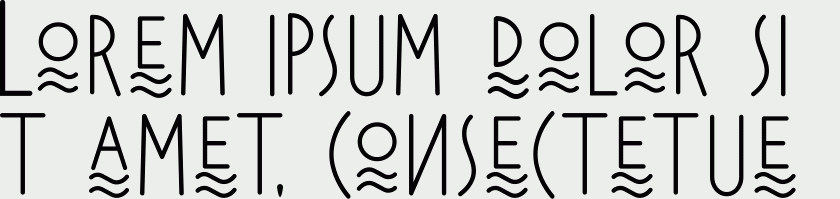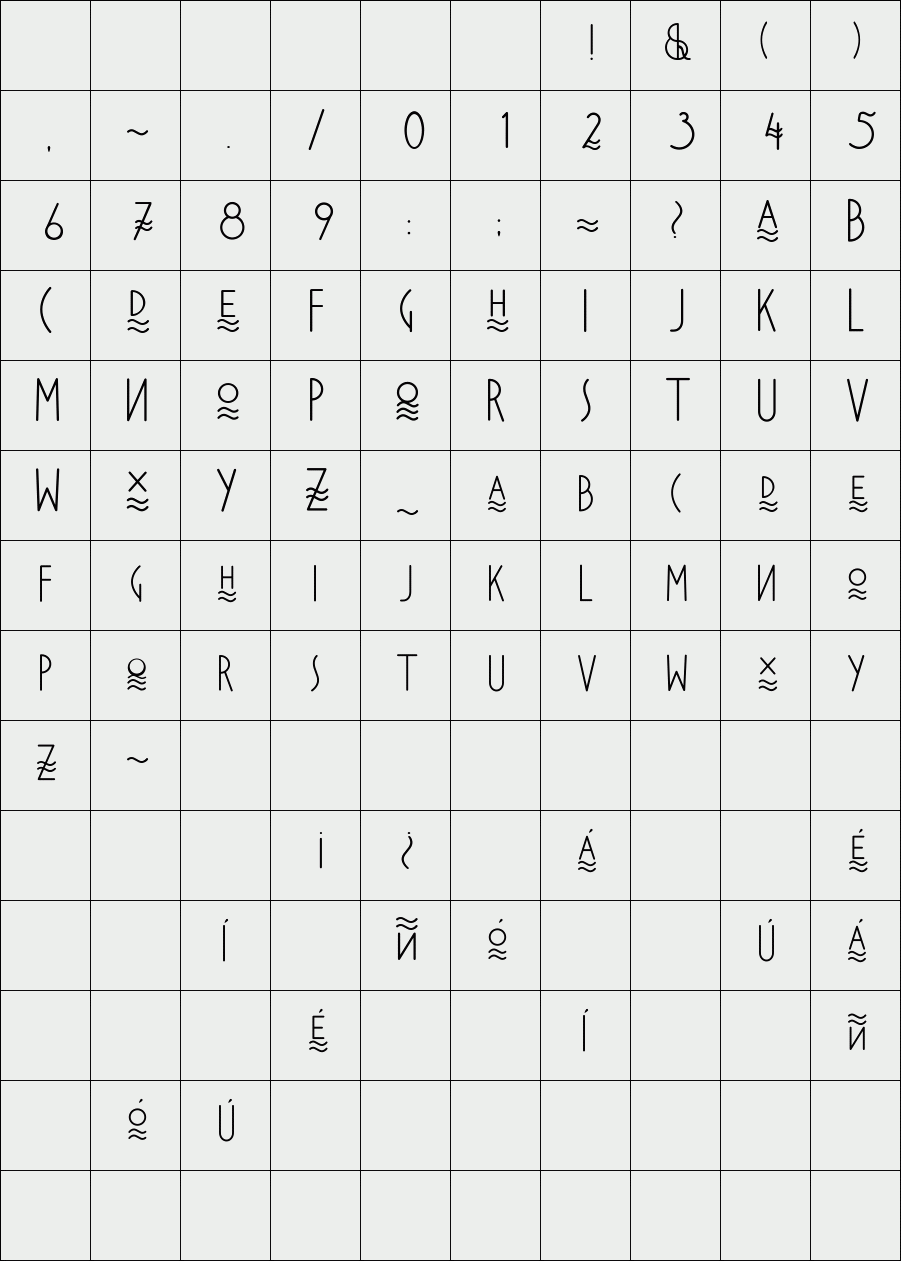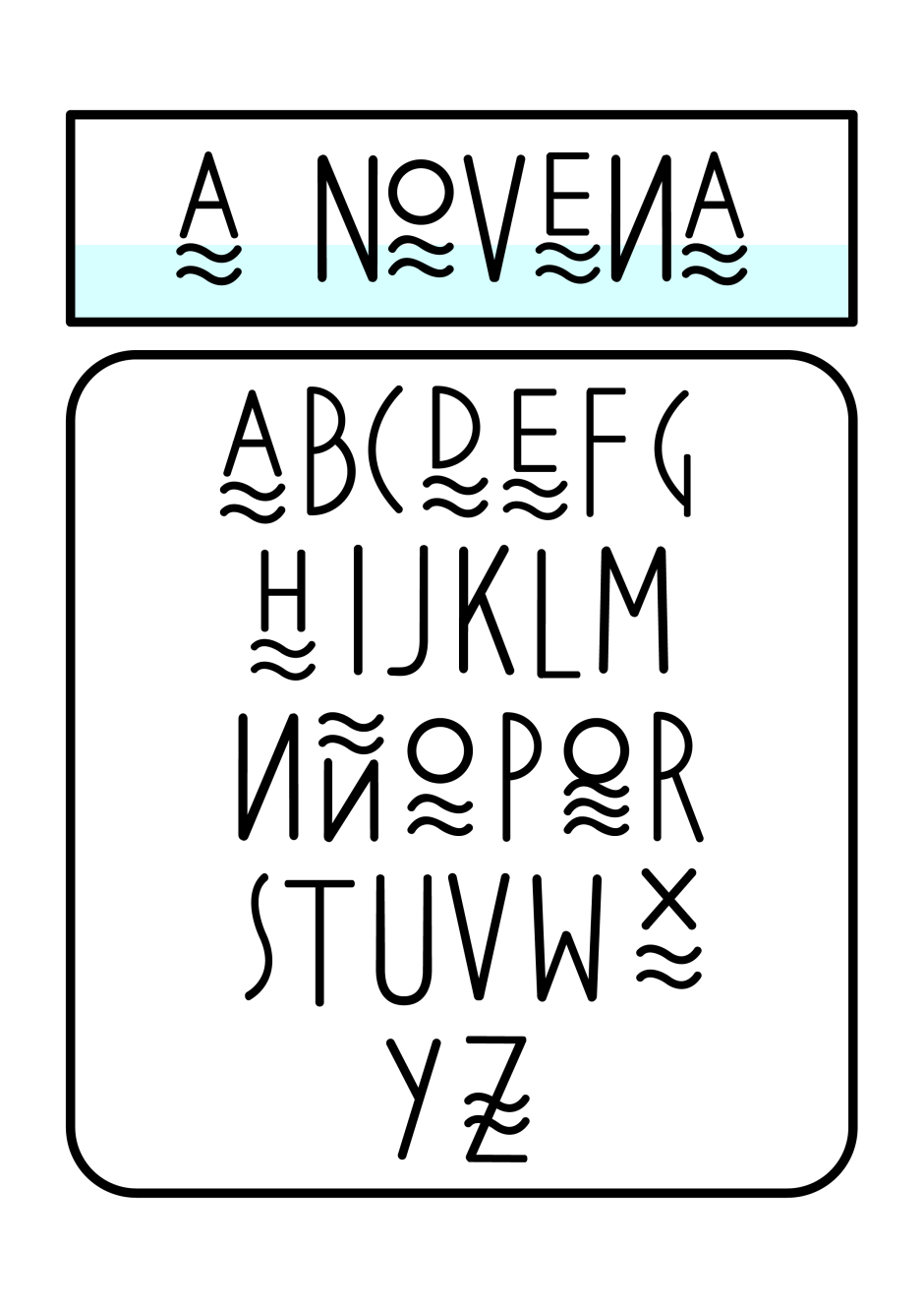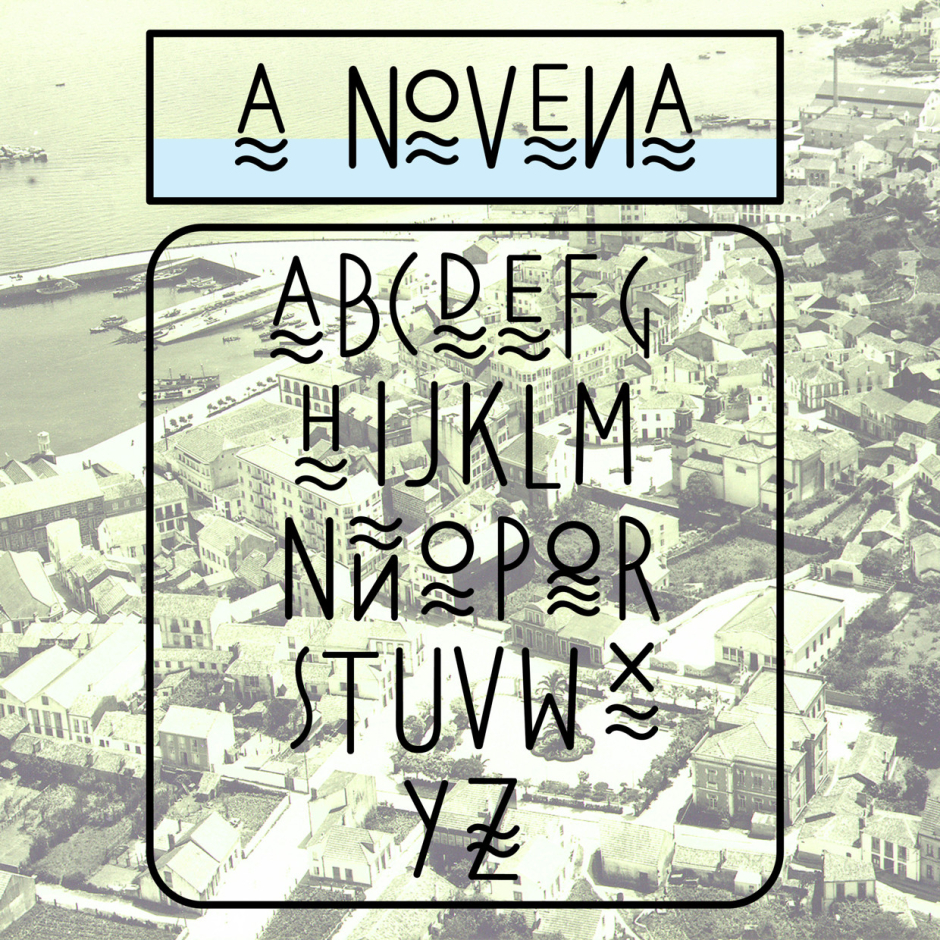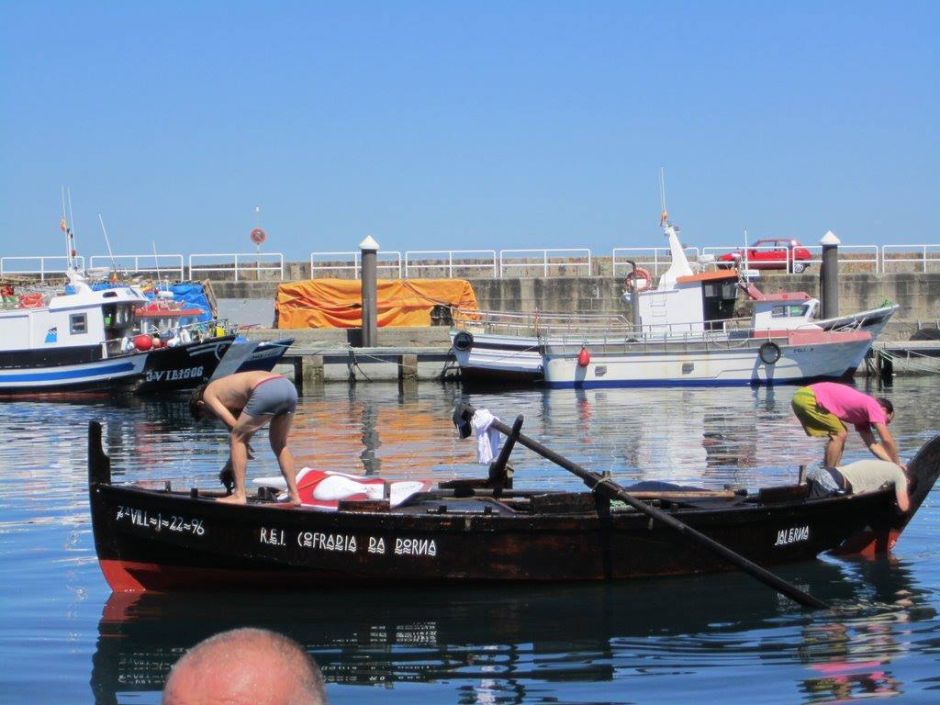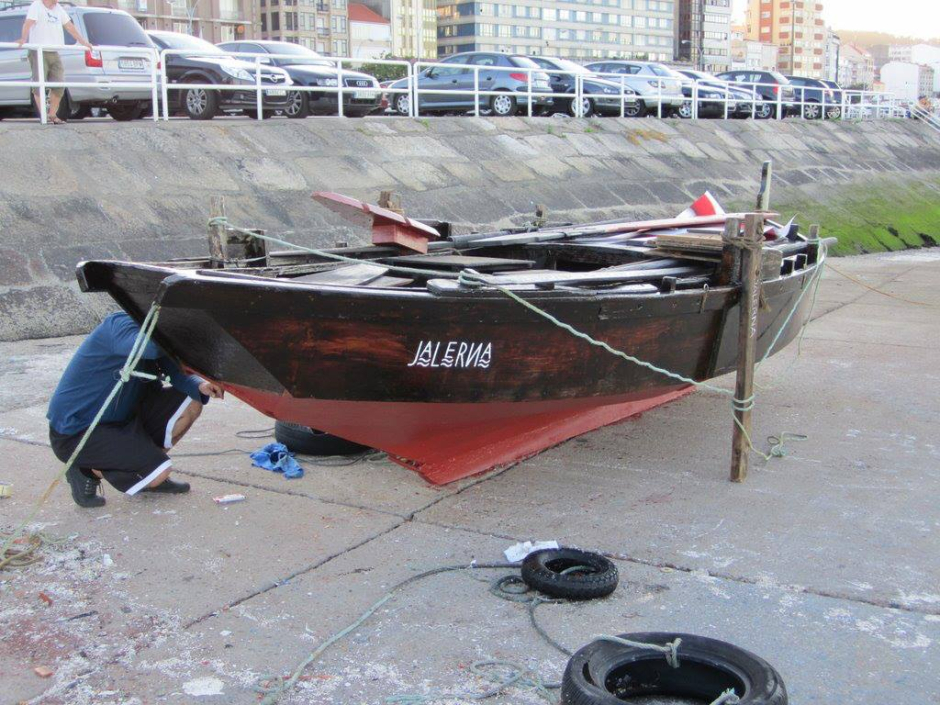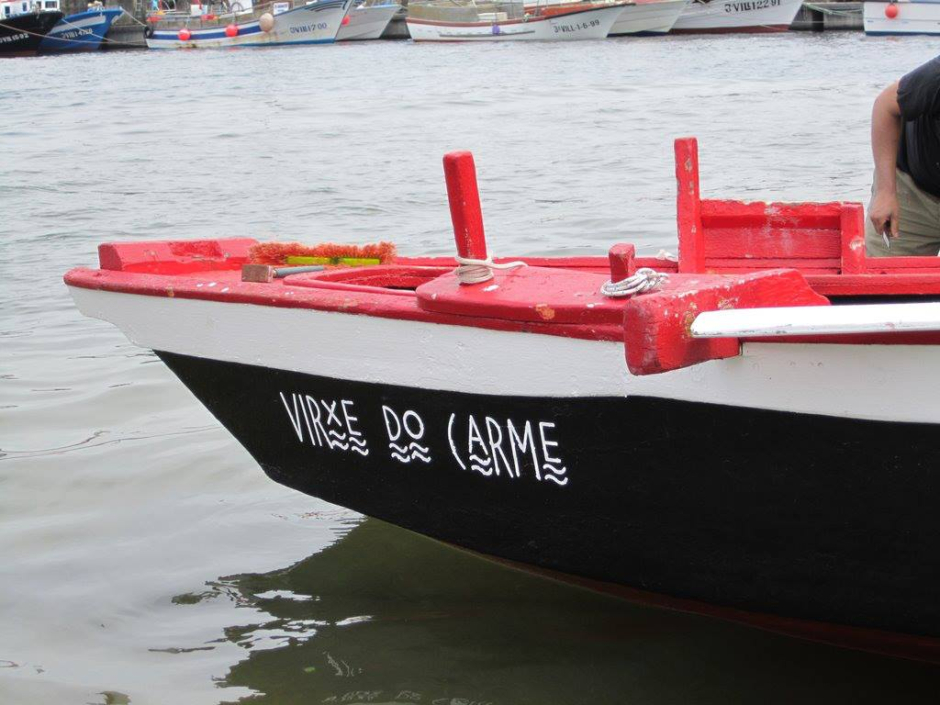
A NOVENA
"A novena" is a typeface inspired by the town where I live, "Santa Eugenia deRibeira". The townspeople mainly make a living from the fruits of the sea, and the tourism it attracts. I based this typeface on imagery of the sea and the tools used in the trade of fishing.